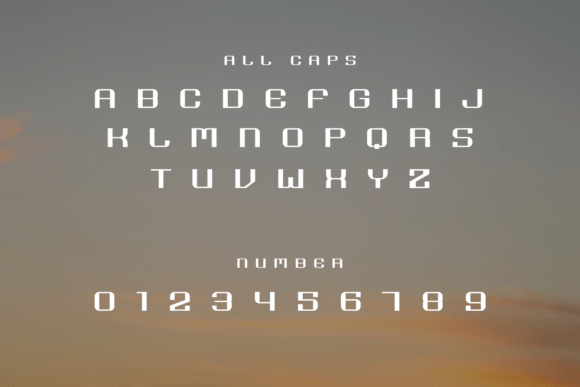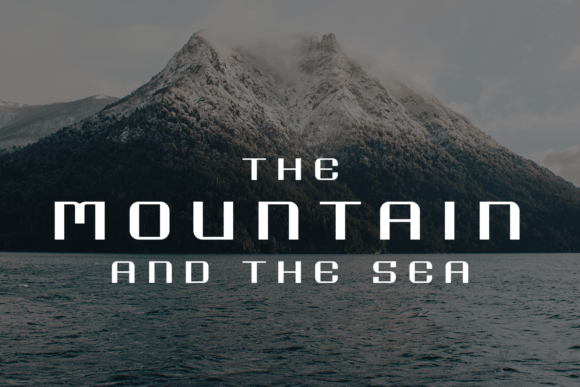
Introduction to Prabes Font
Have you ever been working on a creative project, pouring your heart and soul into it, only to feel like something is missing? That’s where the perfect design resource can make all the difference. For designers, finding the right font can be the key to elevating their work from good to great. That’s why we’re excited to introduce you to the Prabes Font, a fun and unique display font that’s sure to add a touch of magic to your next project.
Key Features of Prabes Font
- High-quality design resource suitable for creative projects, offering a unique and stylish look.
- Includes multiple styles and weights, providing designers with a versatile tool for various creative projects.
- Perfect for use in graphic design, digital art, and other creative projects where a unique font is required.
Honest Review: Prabes Font
As a designer, I’m always on the lookout for high-quality design resources to elevate my creative projects. The Prabes Font has caught my attention, and I’m excited to share my honest review with you.
- High-quality typography: The Prabes Font boasts a sleek and modern design that’s perfect for a wide range of creative projects.
- Limited character set: I found that the font’s character set is limited, which may not be ideal for projects that require a wide range of characters.
- Not suitable for body text: While the Prabes Font is perfect for headings and titles, it may not be the best choice for body text due to its limited character set and font size.
Overall, the Prabes Font is a solid addition to any designer’s toolkit. While it has its limitations, its high-quality typography and free download make it a valuable resource for creative projects. I would recommend it for titles, headings, and other design elements where a modern and sleek font is required.
Tips for Getting the Most Out of Prabes Font
To get the most out of Prabes Font, experiment with different font sizes, colors, and styles. You can also use the font in combination with other design elements to create a unique and creative look.
Common Use Cases for Prabes Font
The Prabes Font is perfect for a variety of creative projects, including logos, branding, and marketing materials. Its high-quality design and transparent background make it a great choice for overlaying text on images.